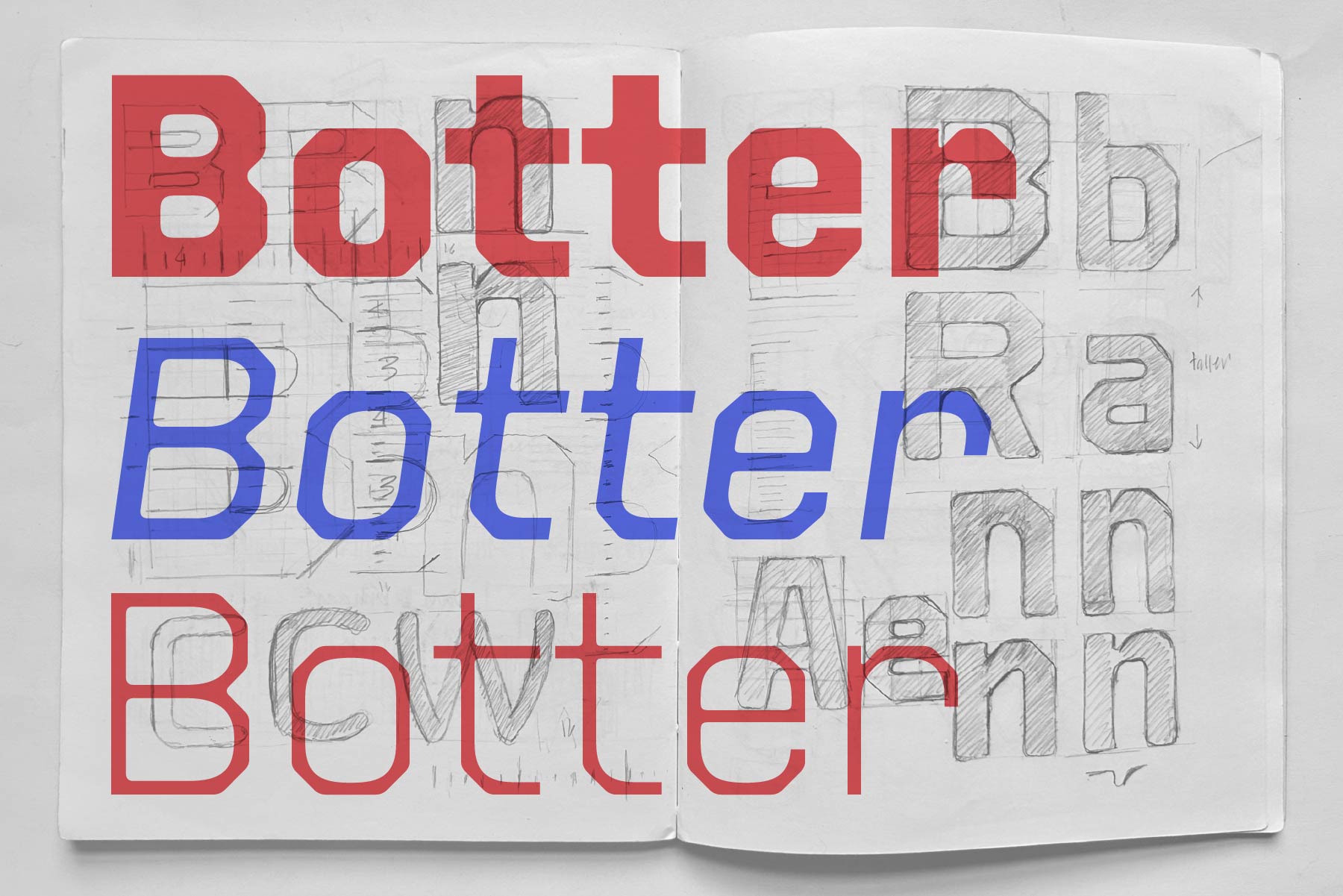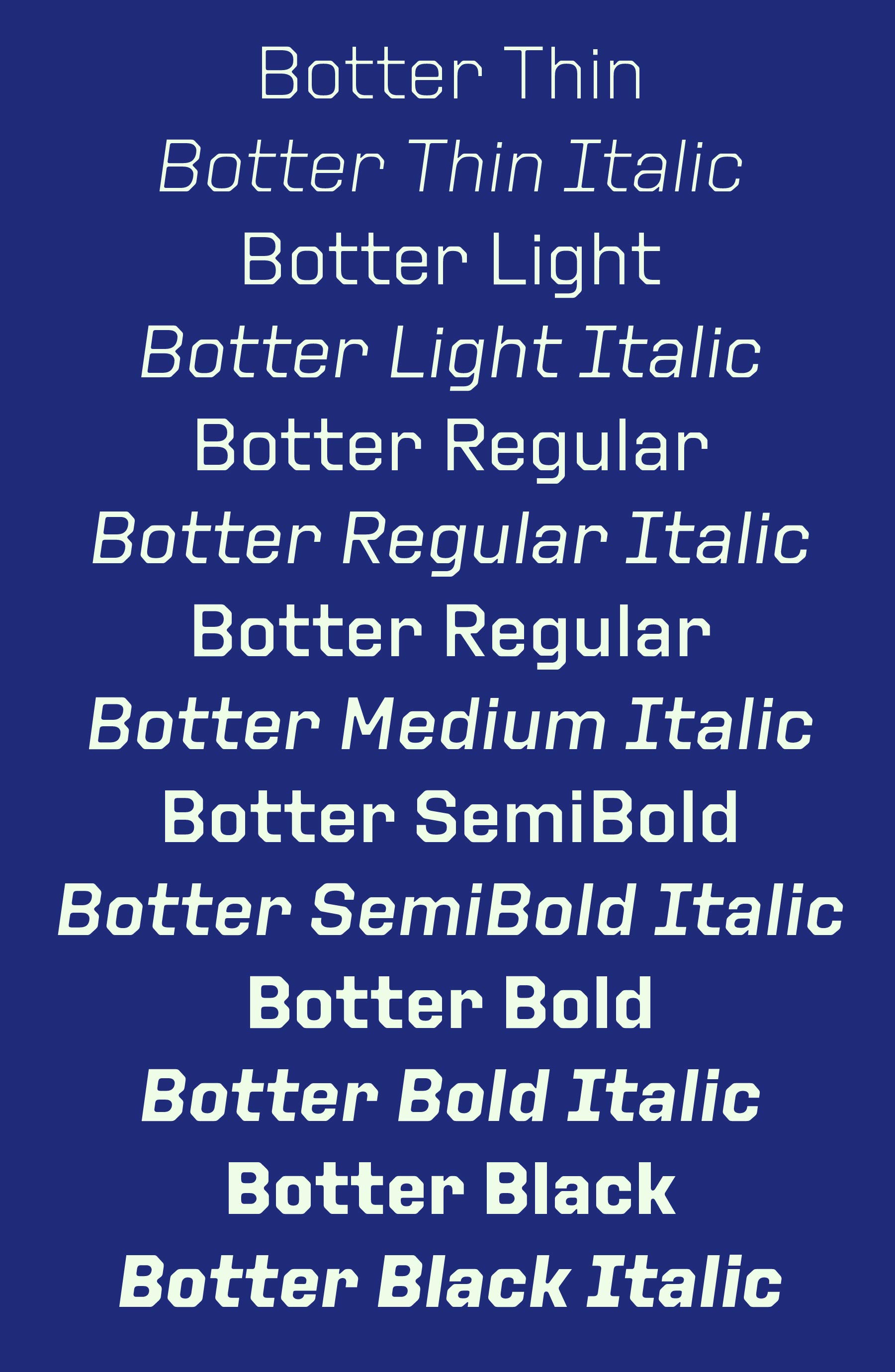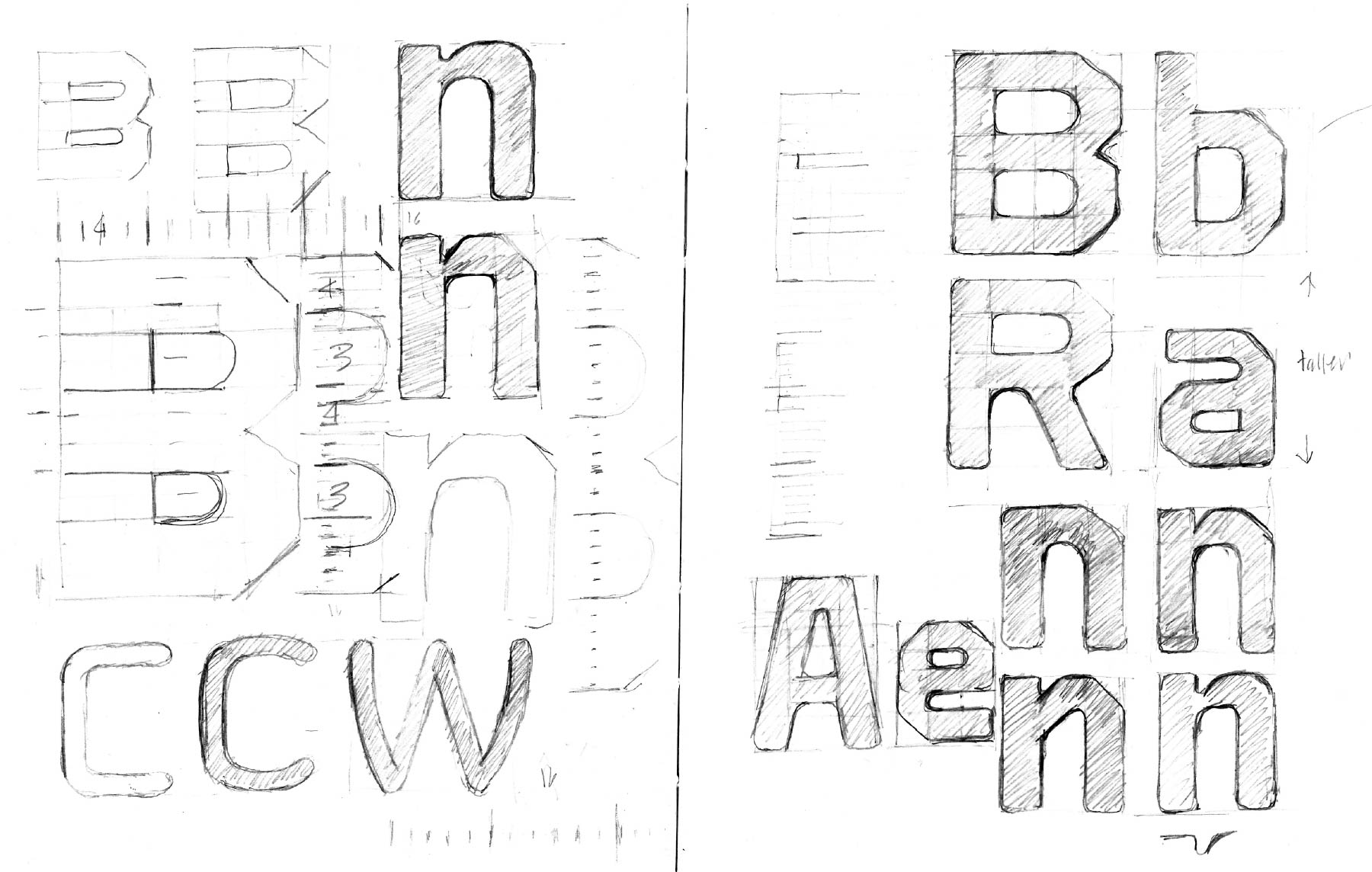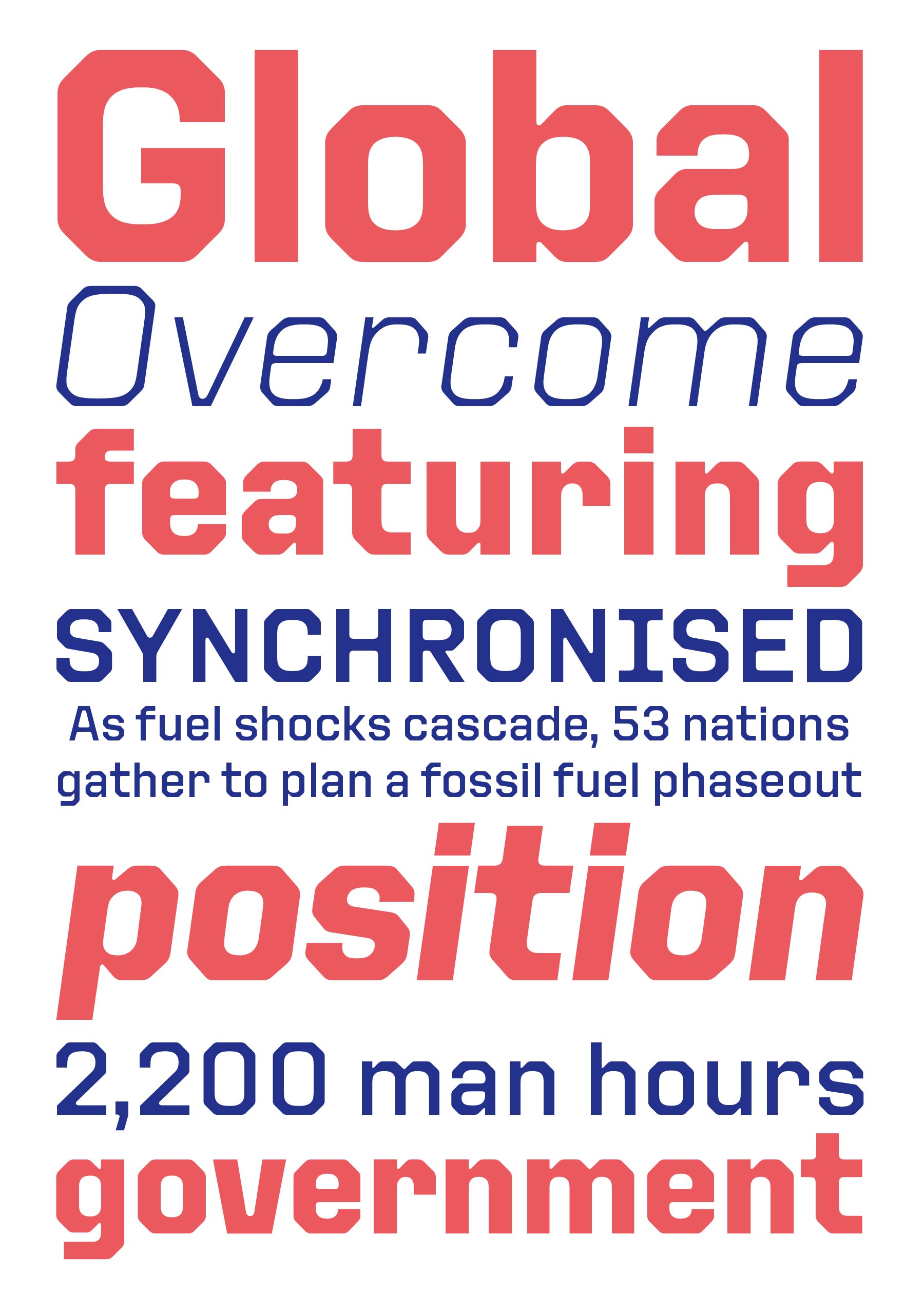
Softening the Grid: The Making of Botter
Due to the abundance of single-weight fonts in the Brutal Types catalog, some might assume we lack the capacity to develop fully fledged type families. The complexity of the typefaces available at Retype Foundry —our main label—, however, demonstrates otherwise.
While many Brutal Types releases are intentionally presented in a single weight—often retaining the original uppercase character set with which they were conceived—some designs reveal the potential for further development. In those cases, we expand them into broader families, increasing their versatility across formats and sizes.
Today, we present Botter, a sans-serif typeface developed in new collaboration between David Quay and Ramiro Espinoza. Its design is based on a series of sketches and early font prototypes created by Quay in 2007, characterized by a combination of rectangular structure and softly rounded forms. These contrasting qualities give the typeface a distinctive balance between rigidity and approachability.
The name Botter refers to a traditional Dutch fishing vessel dating back to the eighteenth century. The letterforms are modular, solid, and slightly technical in appearance, with visual affinities to monospaced typewriter fonts and the standardized lettering used on European license plates.
In 2026, Espinoza translated these early concepts into a coherent type family, refining proportions, improving consistency, and expanding the design into a versatile system. Botter is available in seven weights, each accompanied by an italic, offering a wide range of possibilities for typographic use.
With its structured geometry and utilitarian character, Botter is particularly well suited for printed and digital applications in the fields of architecture, technology, avant-garde arts, and electronic music that benefit from a clear and contemporary typographic voice.